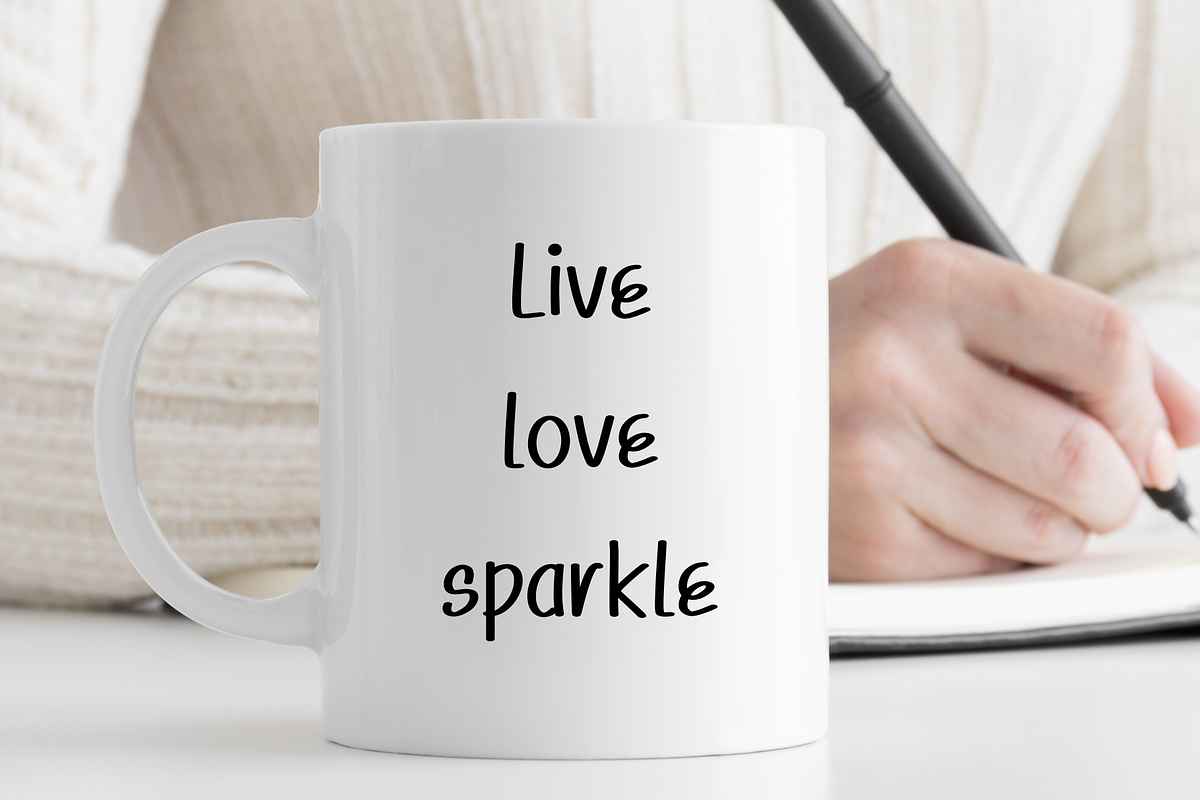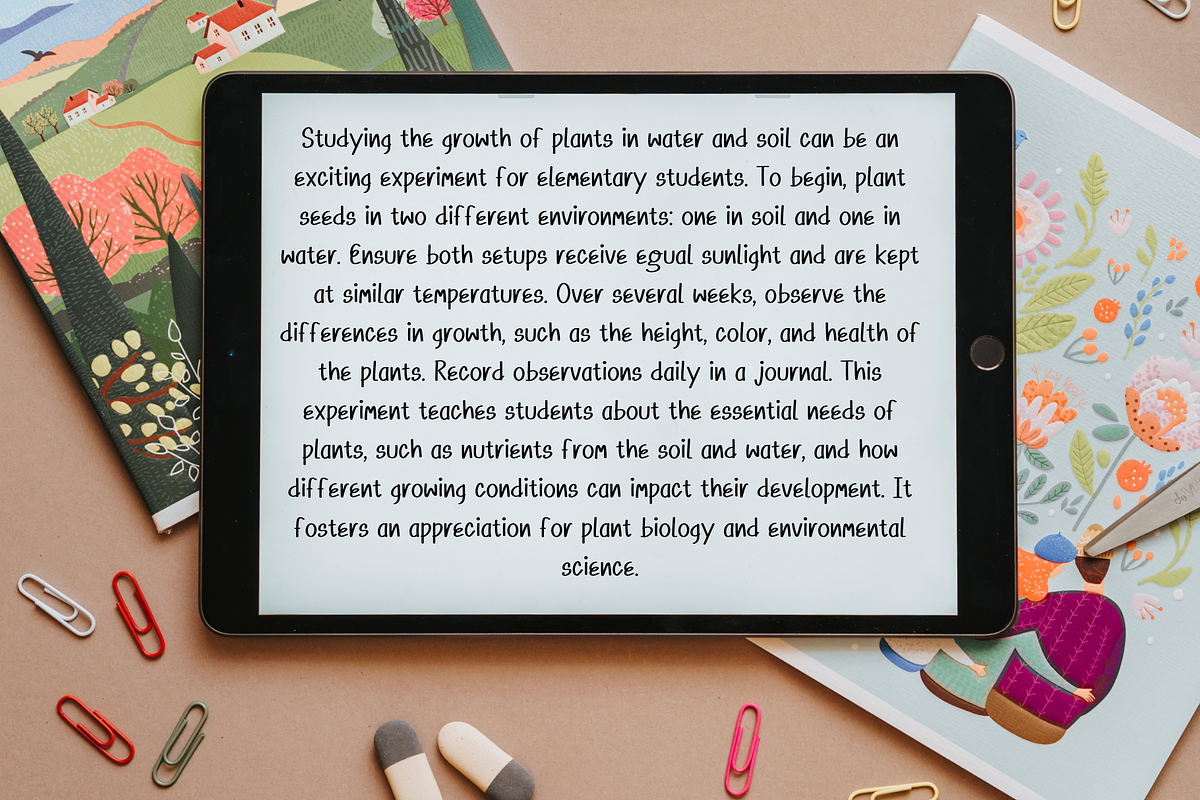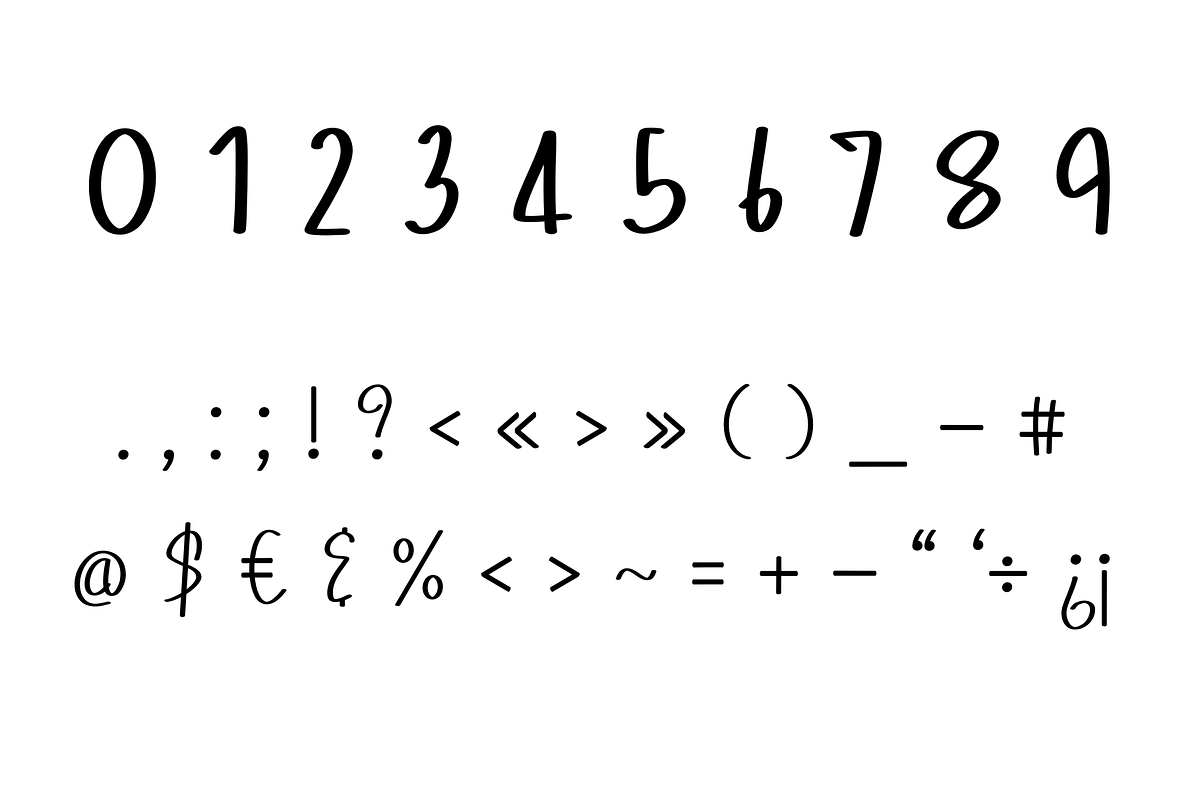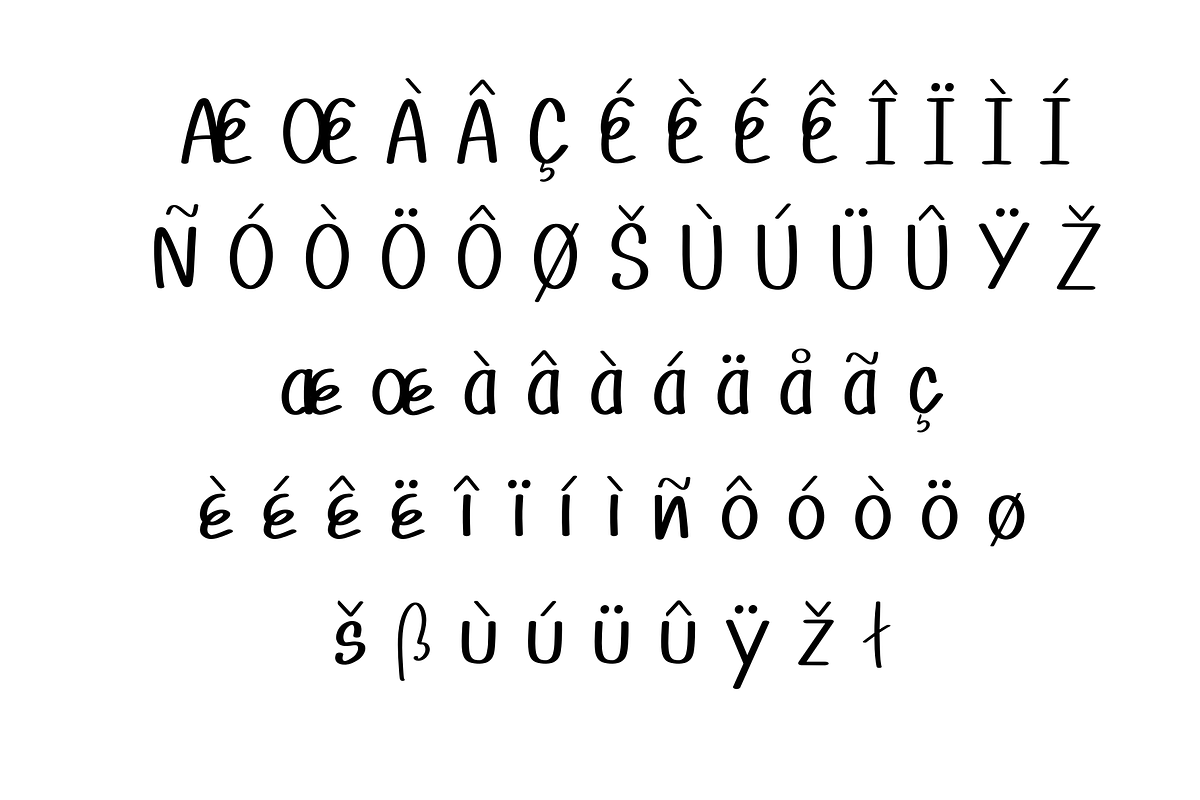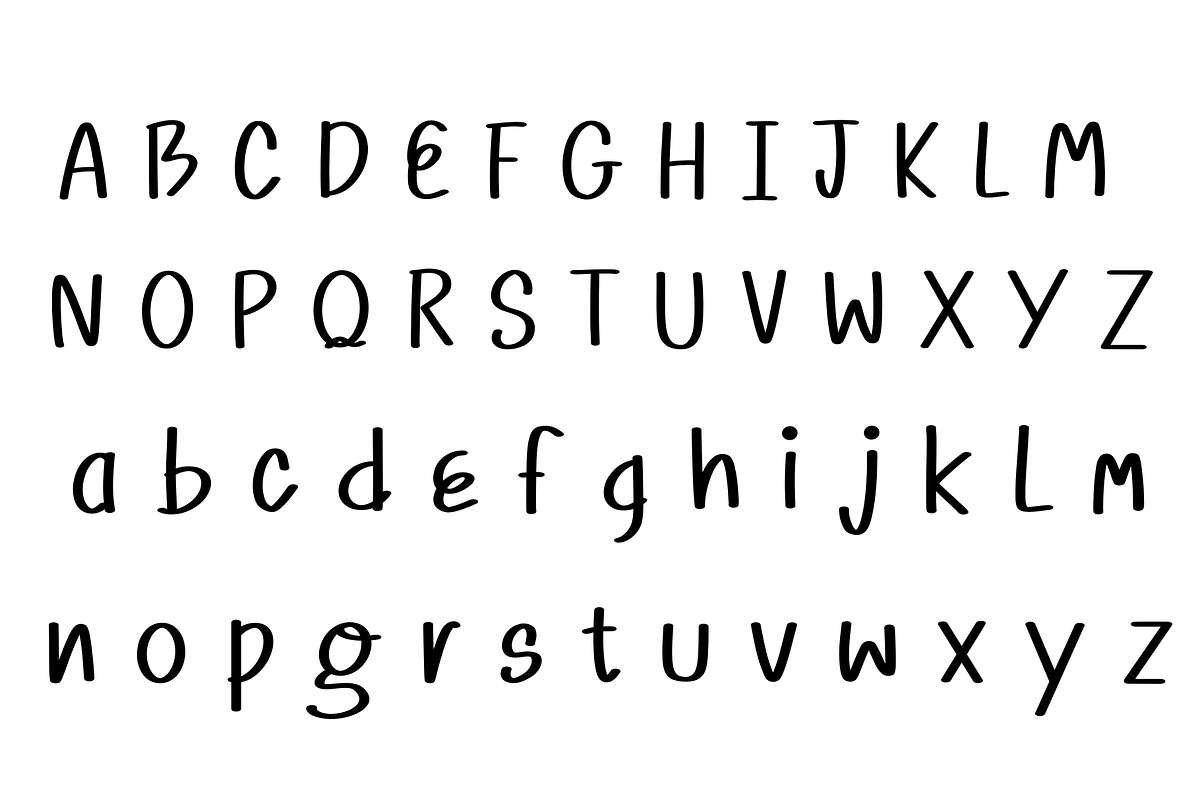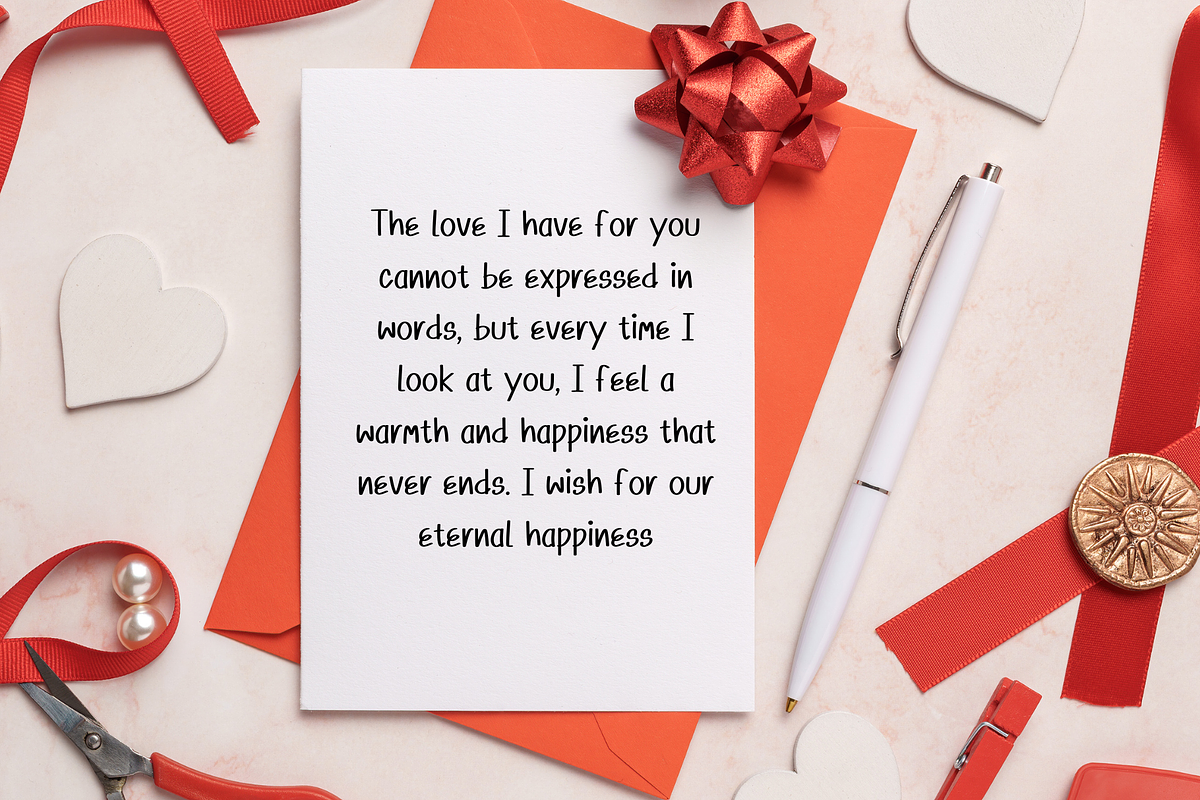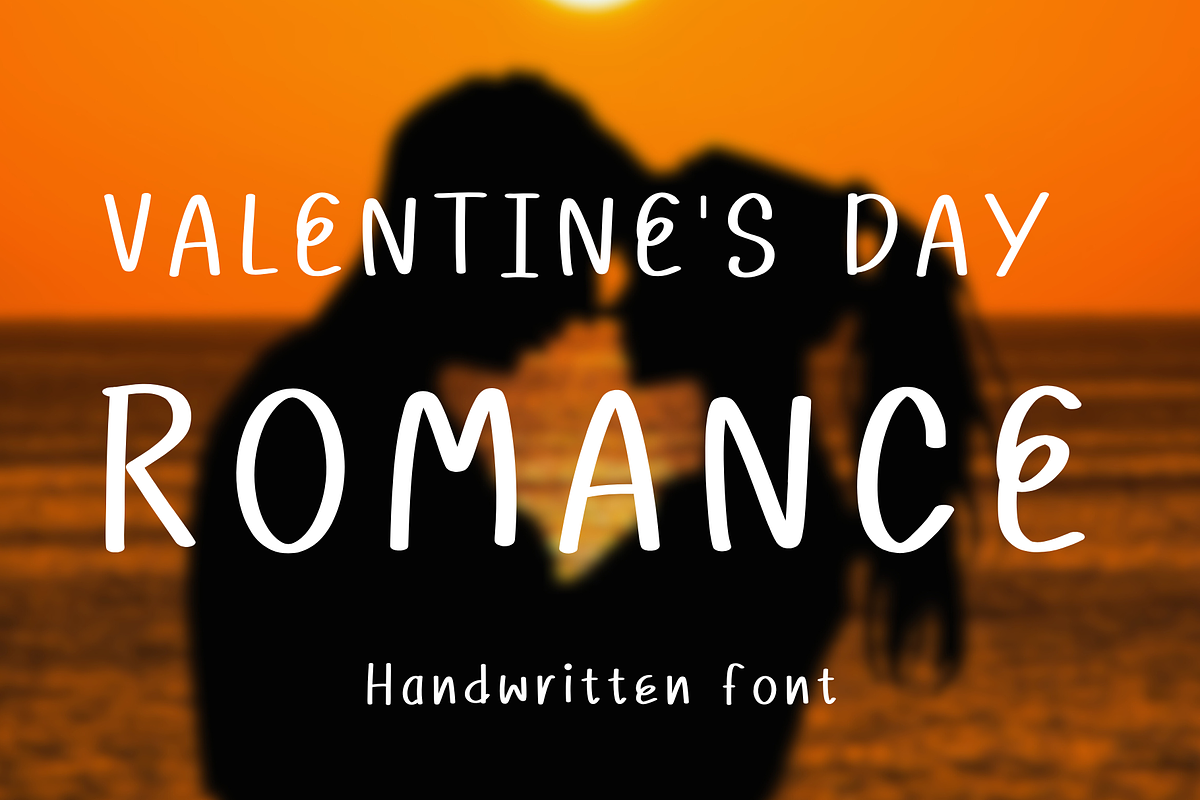
Valentine's Day romance
Valentine's Day Romance is a sweet and playful handwritten font that perfectly captures the charm and passion of love. Its whimsical and casual style makes it ideal for Valentine’s Day cards, love letters, wedding designs, romantic social media posts, and much more. The font brings a touch of intimacy and joy to your projects, creating a heartfelt connection with your audience. What do you get? Format: OTF, TTF, and WOFF